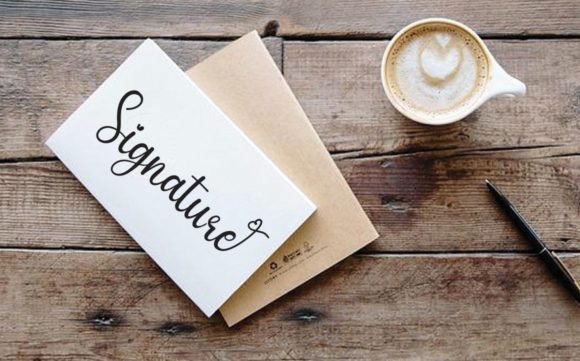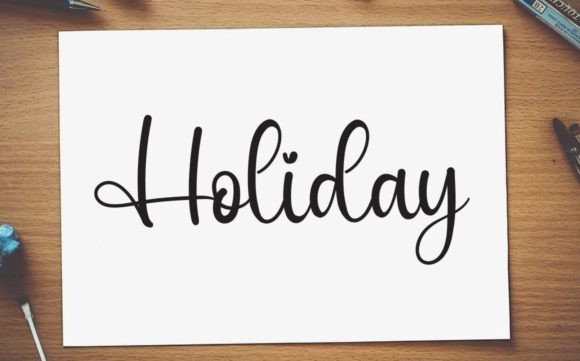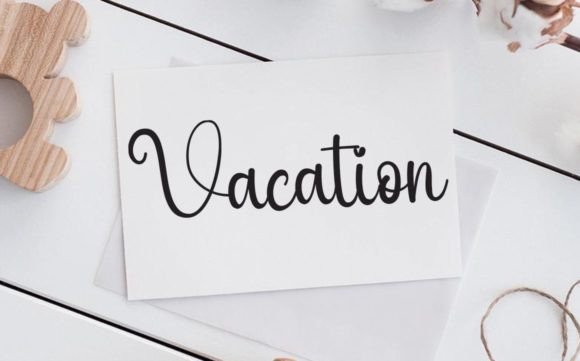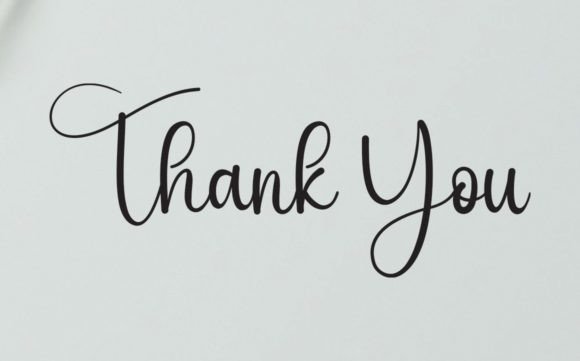
Unleash the Magic of Handwritten Style
There’s something special about a handwritten message, isn’t there? The imperfections, the character, the personal touch – it’s a language that speaks directly to our hearts. For designers, capturing that essence in a digital format can be a challenge, but what if we told you there’s a font that can make it happen?
Enter Alive Font, a beautiful handwritten font that’s designed to add a touch of romance and whimsy to any project. With its versatility and wide range of applications, from greeting cards to headlines, Alive Font is the perfect tool for designers who want to add a personal touch to their work.
Whether you’re working on a wedding invitation, a love letter, or a marketing campaign, Alive Font is guaranteed to bring a smile to your audience’s face. And for designers, it’s a valuable asset that can help them stand out from the crowd and create truly memorable designs.
- Unique Characteristic: The font features a dynamic, hand-drawn feel with subtle texture and imperfections, giving it a unique and human touch
Alive Font Review
As a designer, I was excited to dive into the Alive Font and see what it had to offer. Here’s my honest take:
- The font’s modern and sleek design makes it perfect for contemporary branding and design projects.
- The high contrast between the thick and thin strokes gives the font a dynamic and energetic feel.
- The font’s versatility allows it to work well in both digital and print applications.
- The font’s bold weights make it ideal for headings and titles.
- The font’s thin strokes can sometimes make it difficult to read at small font sizes.
- The font’s high contrast design may not be suitable for all audiences, particularly those with visual sensitivities.
- The font’s limited language support may be a concern for designers working with non-English languages.
The Alive Font is a solid addition to any designer’s toolkit. While it has some limitations, its modern design and versatility make it a great choice for a wide range of projects. With some careful consideration of its limitations, the Alive Font can be a powerful tool for creating engaging and dynamic designs.
Great Vibes Font is a modern, handwritten font ideal for creating a friendly and approachable atmosphere. It’s perfect for headings, titles, and short paragraphs in creative projects.
Compared to Alive Font, Great Vibes Font has a more playful and casual feel, making it suitable for projects that require a relaxed tone. It lacks the bold, energetic vibe of Alive Font but excels in conveying a sense of friendliness.
Carolyna Pro Font is a stylish, high-end font suitable for luxury branding, fashion, and high-end design projects. It’s ideal for creating a sophisticated and elegant atmosphere.
Compared to Alive Font, Carolyna Pro Font is more refined and polished, making it suitable for projects that require a level of sophistication. It lacks the boldness and energy of Alive Font but excels in conveying a sense of luxury and elegance.